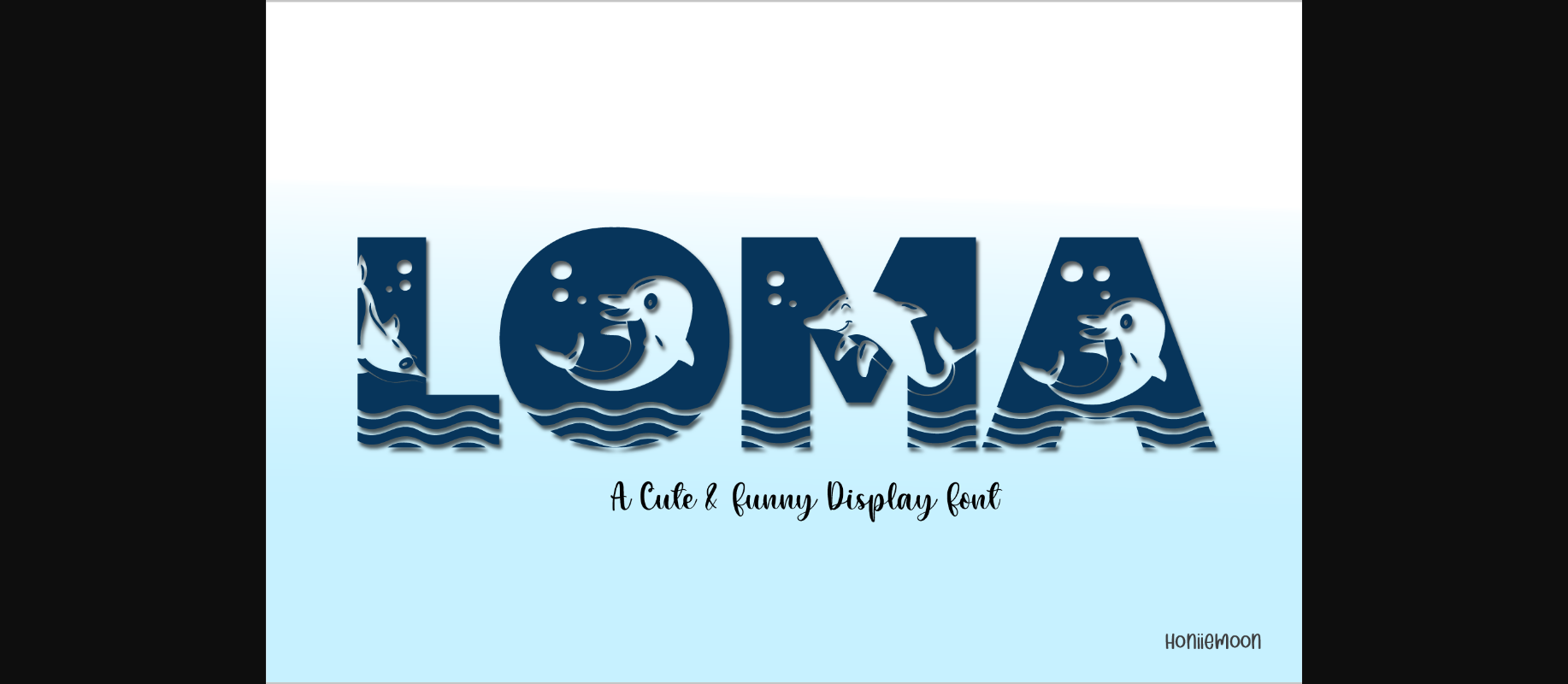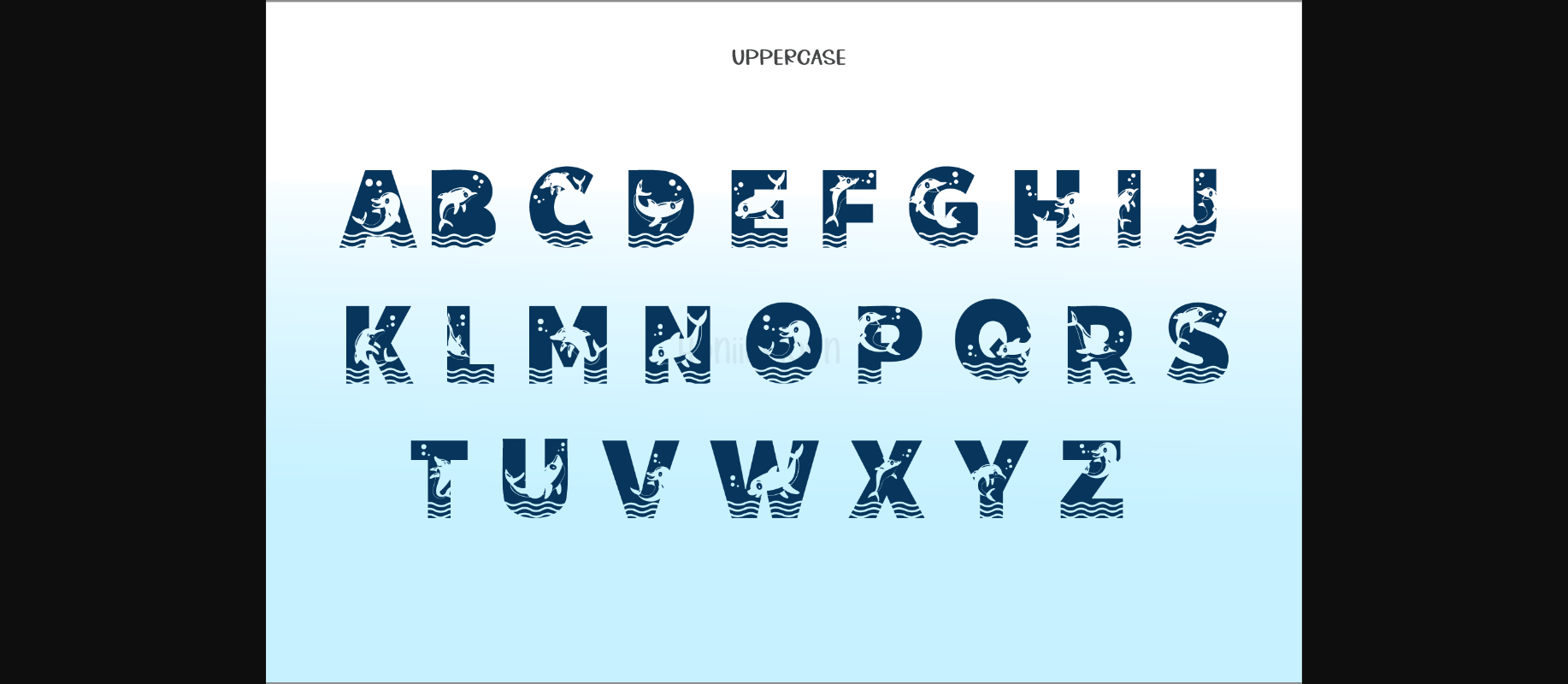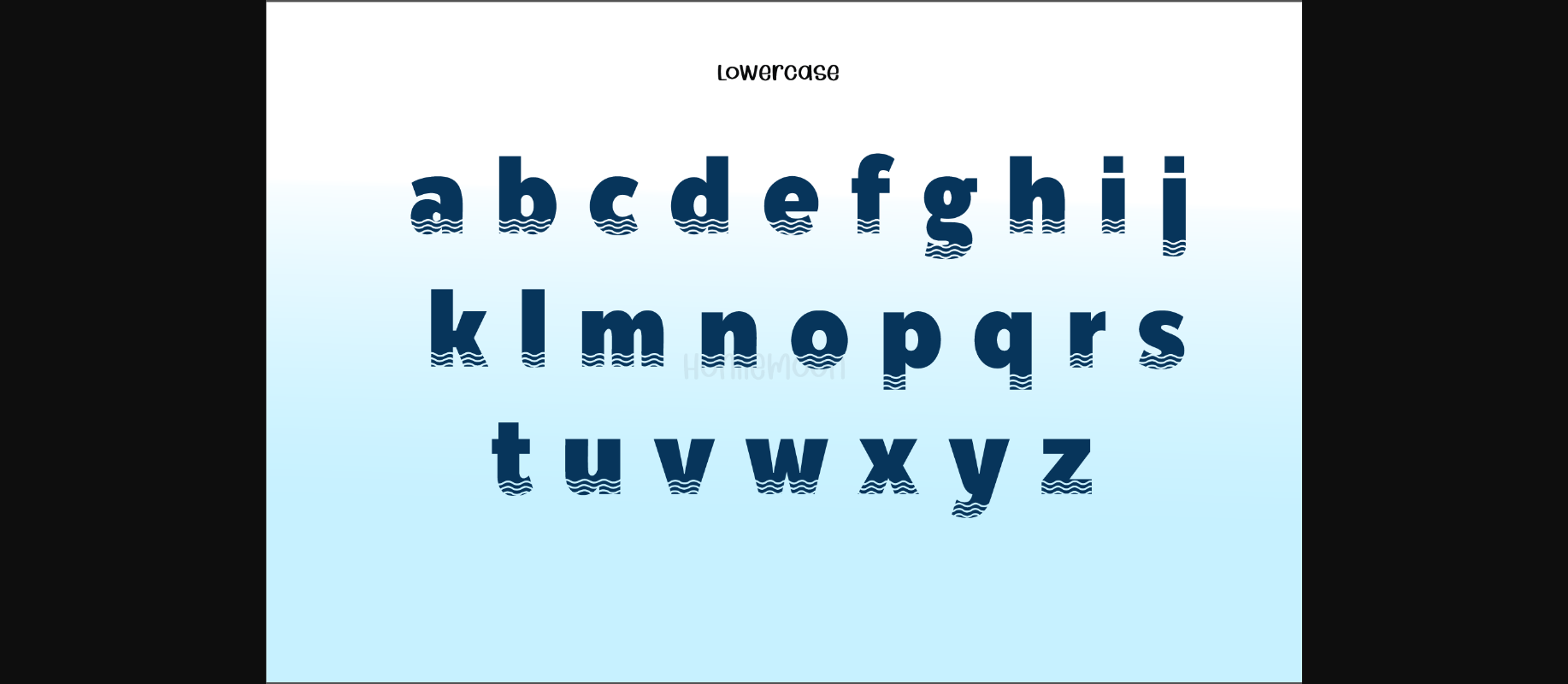
About Loma Font
Loma is a cool and fun decorative font. It looks both cute and jolly and it will enhance each of your designs. The only limit is your imagination. Add this lovely typeface to each of your creative ideas and notice how it makes them come alive.